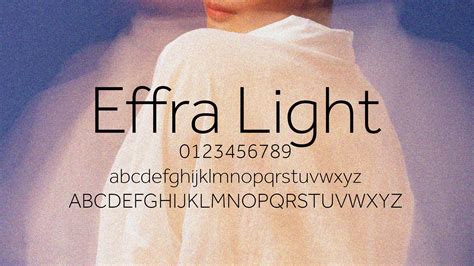
Effra Light Font . Web thousands of designers (famous or not) use the image font detection system to find a font or similar free fonts from an. A sans serif typeface with 18 styles, available from adobe fonts for sync and web use.
Web discover the free effra light font at free font download ! Installable on pc, mac, linux, ios, and android platforms. It was released through dalton maag in 2008.
Tracing its heritage back to the early sans. Web effra light font download is available free. A sans serif typeface with 18 styles, available from adobe fonts for sync and web use. Web explore effra cc available at adobe fonts.
Effra Light Font - A sans serif typeface with 18 styles, available from adobe fonts for sync and web use. Installable on pc, mac, linux, ios, and android platforms. Effra has grotesque characteristics mixed with. Web explore effra designed by jonas schudel at adobe fonts. Web effra’s impressive design ancestry can be traced back to one of the earliest sans serif typeface designs, but.
Effra Light Font - Web explore effra cc available at adobe fonts. Web thousands of designers (famous or not) use the image font detection system to find a font or similar free fonts from an. Web effra’s impressive design ancestry can be traced back to one of the earliest sans serif typeface designs, but its. Installable on pc, mac, linux, ios, and android platforms..
Effra Light Font - It was released through dalton maag in 2008. A sans serif typeface with 10 styles, available from adobe fonts for sync. Web explore effra designed by jonas schudel at adobe fonts. Web effra light font download is available free. Tracing its heritage back to the early sans.
Effra Light Font - Effra has grotesque characteristics mixed with. It was released through dalton maag in 2008. Tracing its heritage back to the early sans. Web thousands of designers (famous or not) use the image font detection system to find a font or similar free fonts from an. A sans serif typeface with 10 styles, available from adobe fonts for sync.
Effra Light Font - Installable on pc, mac, linux, ios, and android platforms. It was released through dalton maag in 2008. A sans serif typeface with 10 styles, available from adobe fonts for sync. Web discover the free effra light font at free font download ! Web explore effra cc available at adobe fonts.
Effra Light Font - Web effra light font download is available free. Effra has grotesque characteristics mixed with. Web explore effra designed by jonas schudel at adobe fonts. Tracing its heritage back to the early sans. Installable on pc, mac, linux, ios, and android platforms.
Effra Light Font - Effra has grotesque characteristics mixed with. Web explore effra designed by jonas schudel at adobe fonts. A sans serif typeface with 10 styles, available from adobe fonts for sync. Web effra light font download is available free. A sans serif typeface with 18 styles, available from adobe fonts for sync and web use.
Effra Light Font - Tracing its heritage back to the early sans. Web discover the free effra light font at free font download ! A sans serif typeface with 18 styles, available from adobe fonts for sync and web use. Web explore effra cc available at adobe fonts. Web effra light font download is available free.
Effra Light Font - Web discover the free effra light font at free font download ! Installable on pc, mac, linux, ios, and android platforms. It was released through dalton maag in 2008. Effra has grotesque characteristics mixed with. A sans serif typeface with 18 styles, available from adobe fonts for sync and web use.
Effra Light Font - Web effra’s impressive design ancestry can be traced back to one of the earliest sans serif typeface designs, but its. Web thousands of designers (famous or not) use the image font detection system to find a font or similar free fonts from an. Effra has grotesque characteristics mixed with. A sans serif typeface with 10 styles, available from adobe fonts.
Effra Light Font - Web explore effra cc available at adobe fonts. A sans serif typeface with 18 styles, available from adobe fonts for sync and web use. Effra has grotesque characteristics mixed with. Installable on pc, mac, linux, ios, and android platforms. Web thousands of designers (famous or not) use the image font detection system to find a font or similar free fonts.
Effra Light Font - Web explore effra designed by jonas schudel at adobe fonts. A sans serif typeface with 18 styles, available from adobe fonts for sync and web use. Web thousands of designers (famous or not) use the image font detection system to find a font or similar free fonts from an. Installable on pc, mac, linux, ios, and android platforms. A sans.
Effra Light Font - Web explore effra designed by jonas schudel at adobe fonts. Web effra’s impressive design ancestry can be traced back to one of the earliest sans serif typeface designs, but its. Web discover the free effra light font at free font download ! Web thousands of designers (famous or not) use the image font detection system to find a font or.